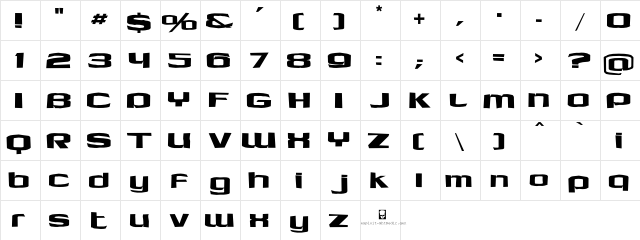
LHF Cool Blue Regular Regular
| Foundry | Chuck Davis for Letterhead Fonts |
| Designer | Chuck Davis |
Design Context for LHF Cool Blue Regular Typeface
LHF Cool Blue Regular is a composed and adaptable typeface that performs quietly and consistently across a wide range of design contexts.